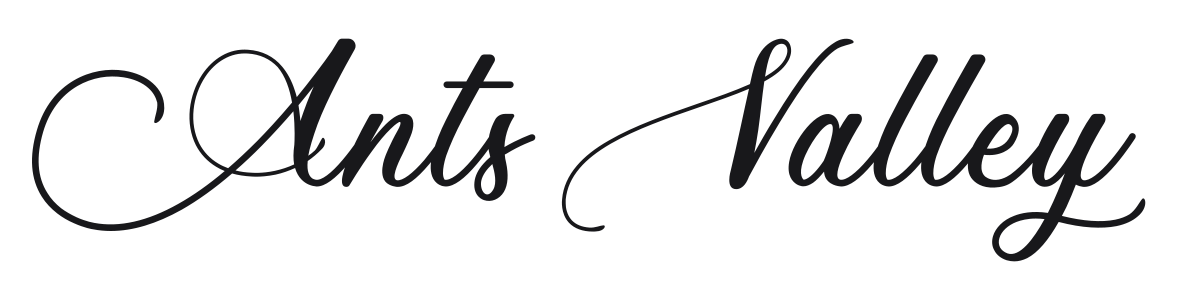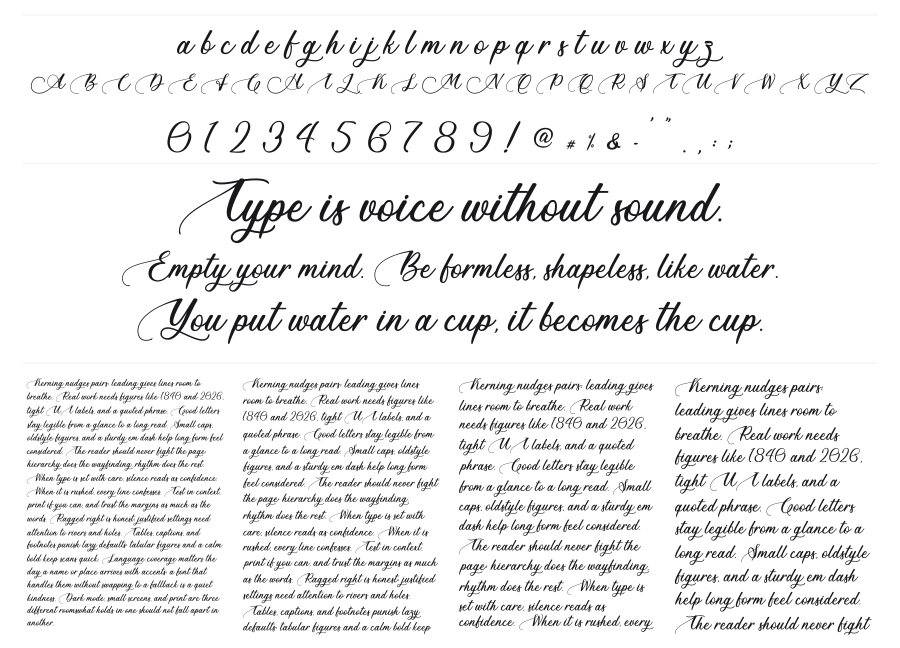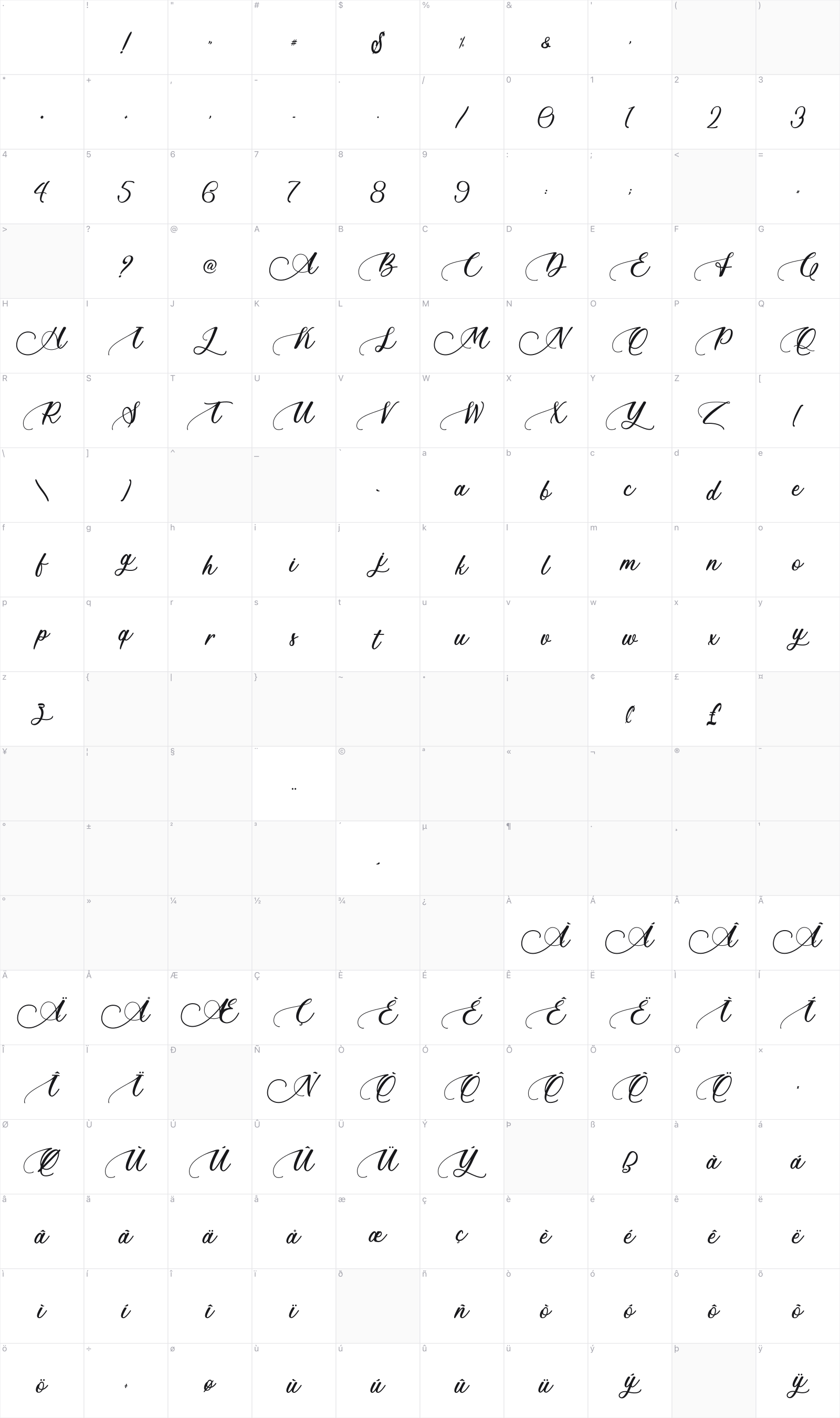
Ants Valley
Ants Valley is a flowing casual script from Typhoon Type with warm calligraphic roots and smooth, connected strokes. The design balances elegance with approachability, featuring graceful looped ascenders and swash details that give it a handcrafted feel. It works confidently in wedding design, branding, and lifestyle packaging.